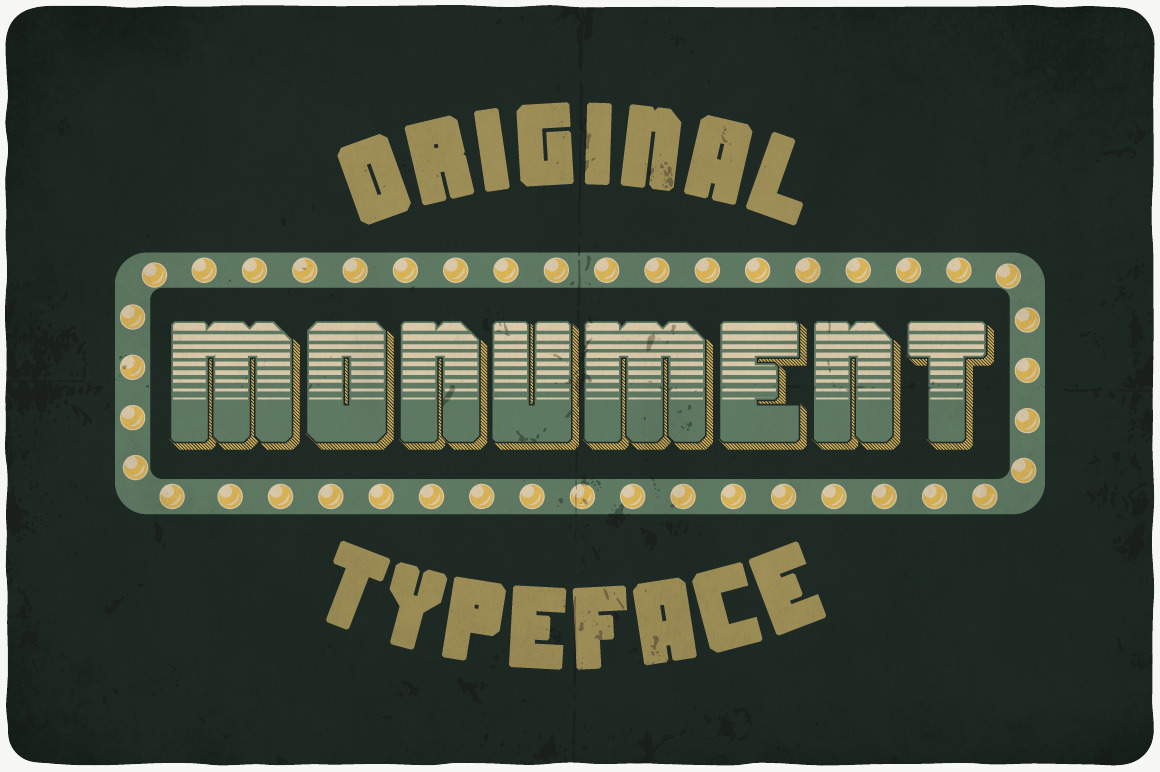
Monument typeface
Introducing a vintage look label typeface named "Monument". This typeface includes four styles, for sample look at 4th preview. Typeface will good viewed on any yours design.